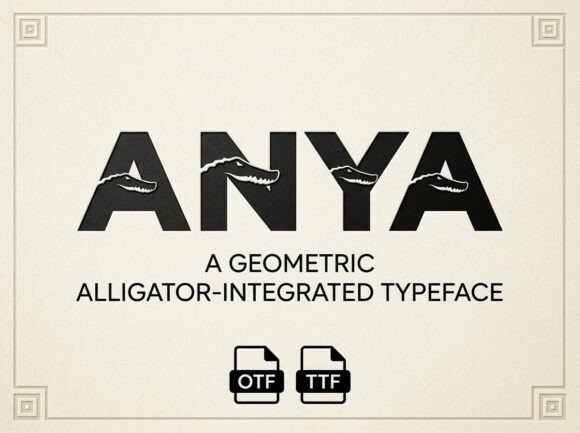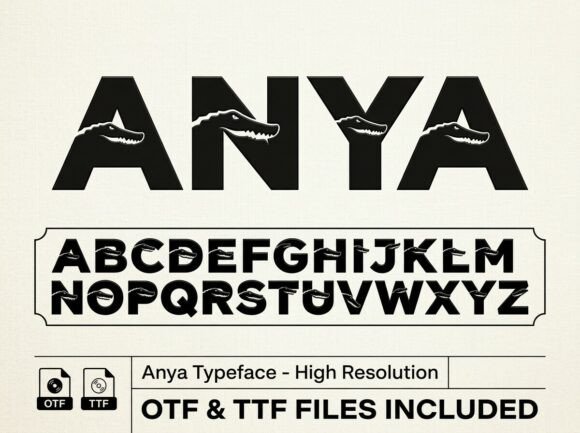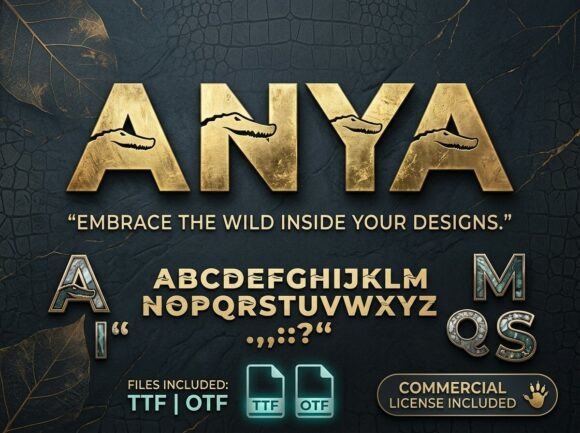
The Ultimate Display Font: A Deep Dive into Anya Font
I’ll never forget the moment I stumbled upon a font that completely transformed my design project. I was working on a branding campaign for a luxury fashion client, and I needed a font that would make a statement. After hours of scouring the internet, I finally found it – a stunning decorative display font that became the centerpiece of the entire campaign. That font was Anya Font, and I’m excited to share its features, quirks, and uses with you today.
What Makes Anya Font Special?
Anya Font is a decorative display font designed to turn heads. With its unique artistic elements and strong visual personality, it’s perfect for creators who want to break away from the ordinary. This font is versatile enough for bold headlines, artistic logos, and creative packaging, while maintaining a professional and polished finish.
• ✨ Unique and artistic elements that add a touch of elegance to any design.
• ✅ Strong visual personality that commands attention.
• ⚡️ Perfect for bold headlines, artistic logos, and creative packaging.
⚠️ IMPORTANT NOTE BEFORE PURCHASE: This font is an ALL-CAPS (Uppercase Only) display typeface. It does not include lowercase letters. It is specifically designed for high-impact headlines, logos, and decorative initials where every letter is a work of art.
While this may seem limiting, it’s essential to understand that Anya Font is designed for specific use cases where uppercase letters shine. With a little creativity, you can still achieve amazing results.
The Story Behind Anya Font
Anya Font was inspired by the artistic movements of the 1920s, with a dash of modern elegance. Its creator, a talented type designer, aimed to craft a font that would make a statement in any design. With its unique artistic elements and strong visual personality, Anya Font is sure to turn heads.
Q: Does Anya Font include lowercase letters?
A: No, Anya Font is an ALL-CAPS (Uppercase Only) display typeface and does not include lowercase letters.